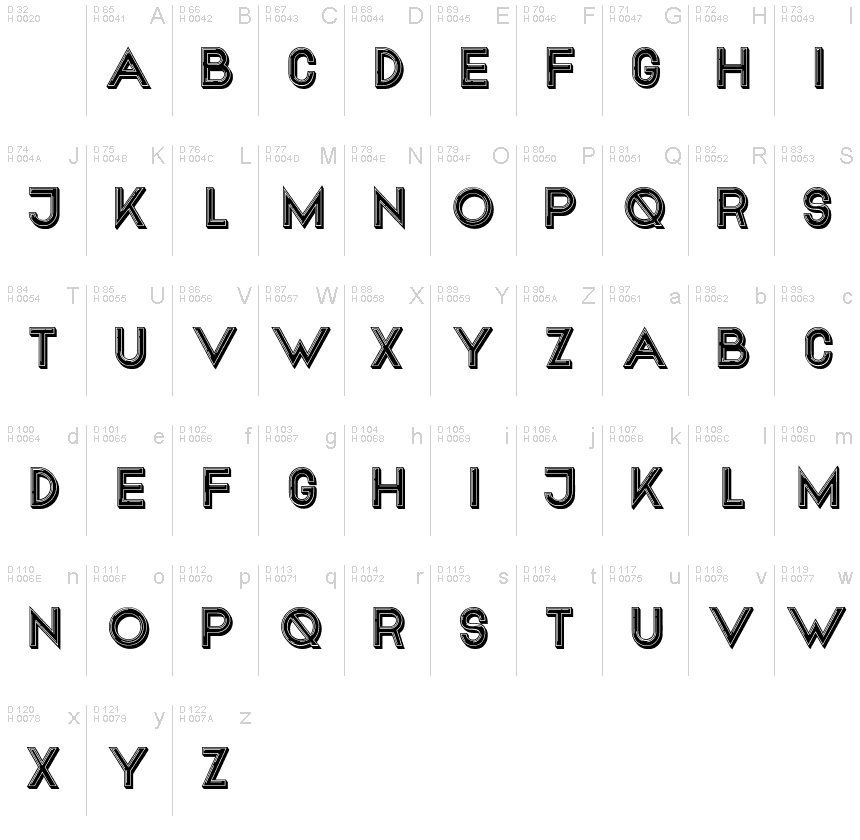
Conventionality Regular
Introducing Conventionality, a semi-light embossed sans serif font created by Vladimir Nikolic. This unique font is perfect for projects requiring a modern, minimalist aesthetic. It’s ideal for creating eye-catching headlines and logos, as well as for crafting professional and creative designs. Conventionality's distinct embossed style adds a touch of sophistication to any project.
Conventionality